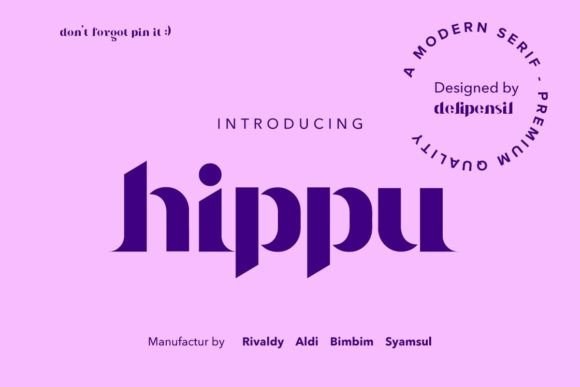
Introducing Hippu Font, the epitome of elegance and sophistication in the world of fonts. Designed by the talented delipensil, this modern serif font is a must-have for anyone looking to add a touch of class to their projects. Whether you're a professional designer or an aspiring creative, Hippu Font is here to elevate your work to new heights.
With its clean and crisp lines, Hippu Font exudes a timeless beauty that is bound to captivate your audience. Its classic design makes it perfect for a wide range of applications, from headlines and paragraphs to cover photos and web design. The versatility of this font is truly remarkable, allowing you to unleash your creativity and bring your visions to life.
Are you in search of the perfect font for your logo? Look no further. Hippu Font is the answer to all your branding needs. Its elegant touch adds a touch of sophistication to any logo, making it memorable and visually stunning. Stand out from the crowd and leave a lasting impression with this exceptional font.
But it doesn't stop there. Hippu Font is more than just a pretty face. It is a font with a purpose. Designed specifically for those in the cattle industry, it is the best font for cattle brand. Its unique and eye-catching style embodies the strength and resilience of these majestic creatures. With Hippu Font, you can convey the essence of your brand and establish a strong identity that resonates with your audience.
Don't settle for ordinary fonts that blend into the background. Hippu Font demands attention and leaves a lasting impact. Its captivating presence will draw your viewers in, urging them to explore and engage with your content. Let your creativity shine through and create designs that are truly remarkable.
In conclusion, Hippu Modern Serif Font is the perfect choice for those seeking elegance, versatility, and a touch of creativity. Embrace the power of this font and unlock a world of possibilities for your projects. Download Hippu Font today and experience the magic for yourself. Elevate your designs, captivate your audience, and make a statement with the best font for cattle brand - Hippu Font.